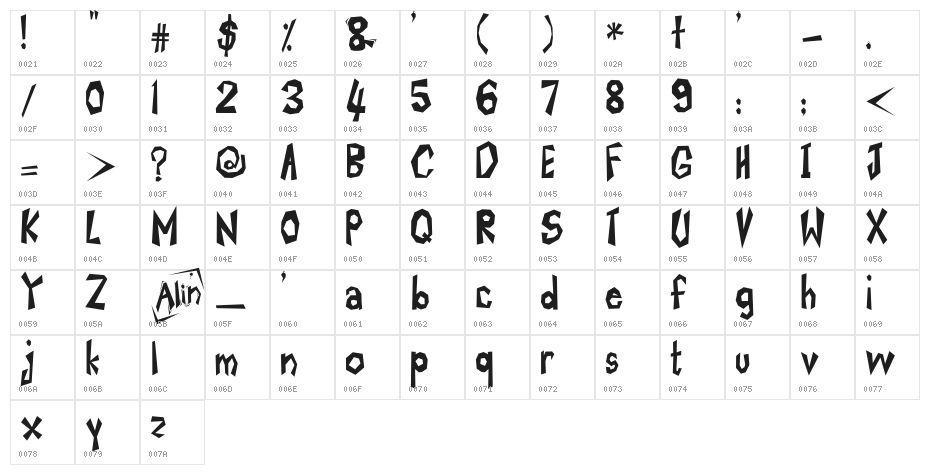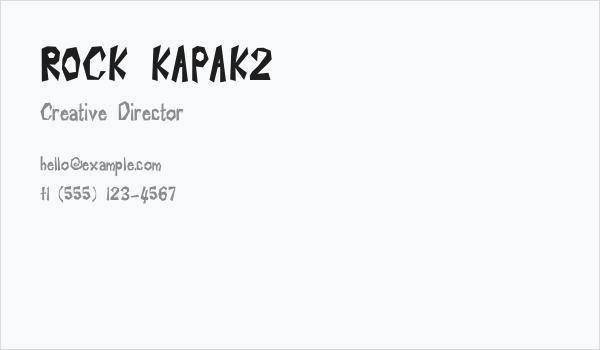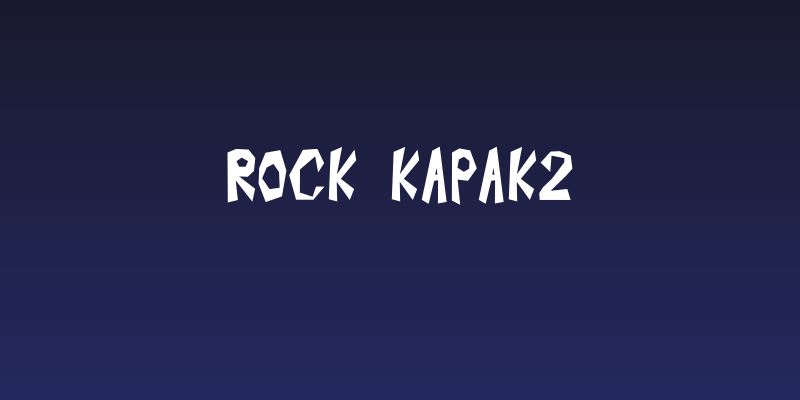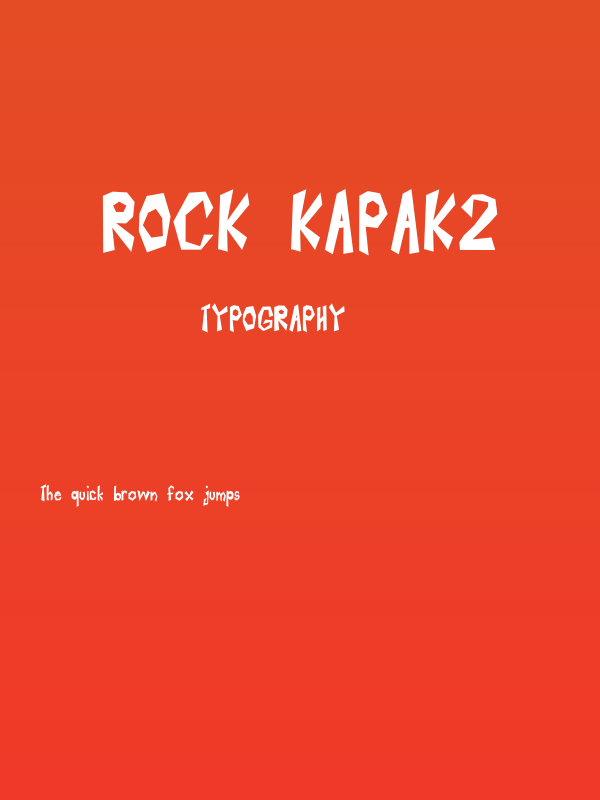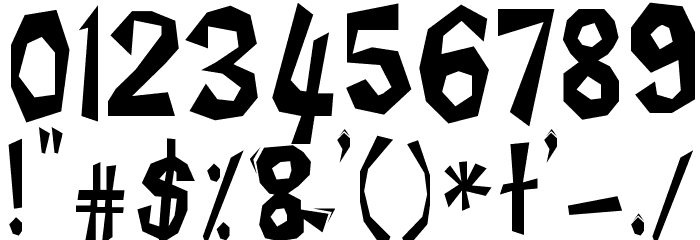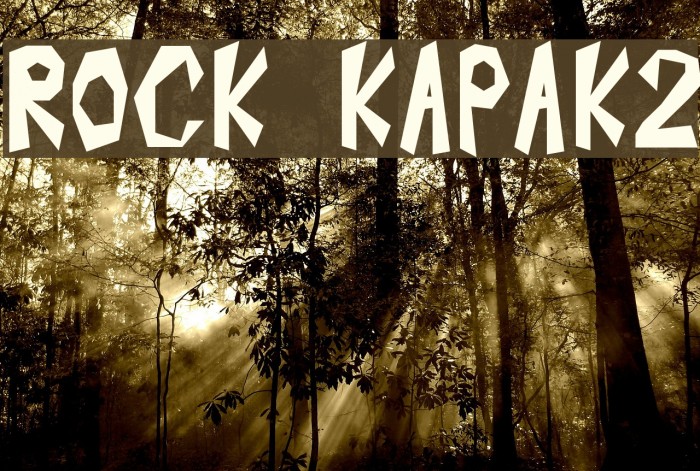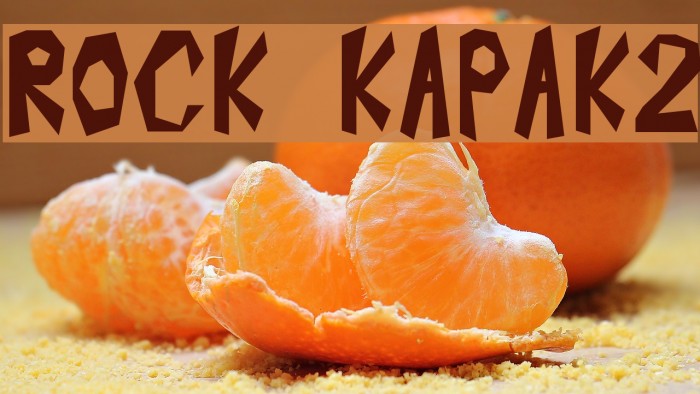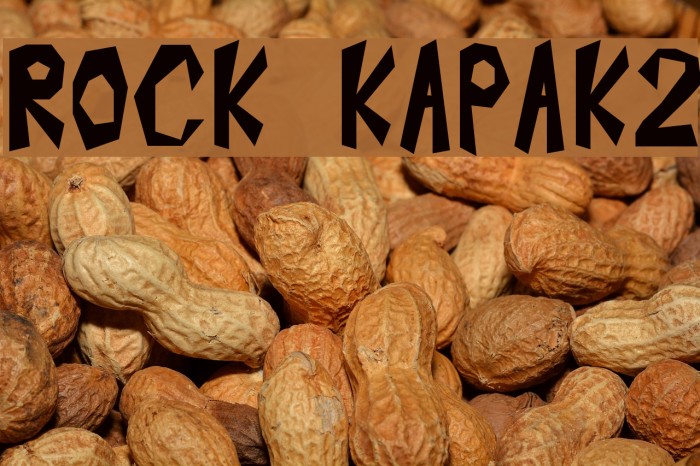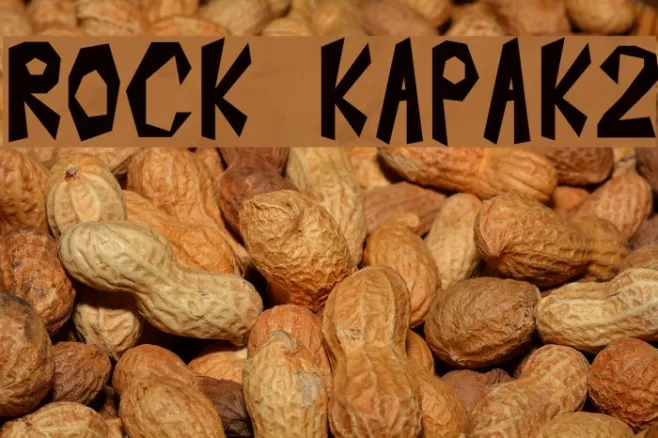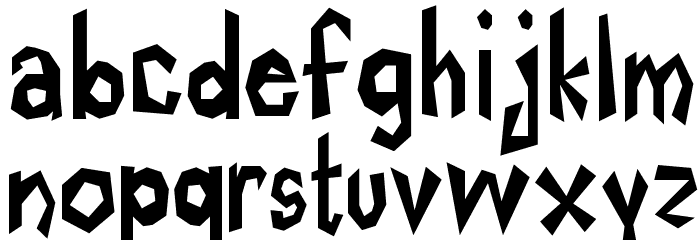
ROCK KAPAK2 Font
ROCK KAPAK2 Description
This font features a bold and edgy design with sharp, angular lines that give it a rock-inspired aesthetic. The uppercase letters are particularly striking, with a jagged, almost geometric appearance that suggests movement and energy. The lowercase letters maintain this dynamic style, offering a consistent look across all characters. Numbers and special characters are crafted with the same boldness, ensuring uniformity throughout. The font's unique style makes it ideal for projects that require a strong visual impact, such as music album covers, posters, or branding for edgy products.
| Overall Style | Modern, Edgy |
| Proposed Projects | Perfect for music album covers, posters, branding for edgy products, and event promotions. |